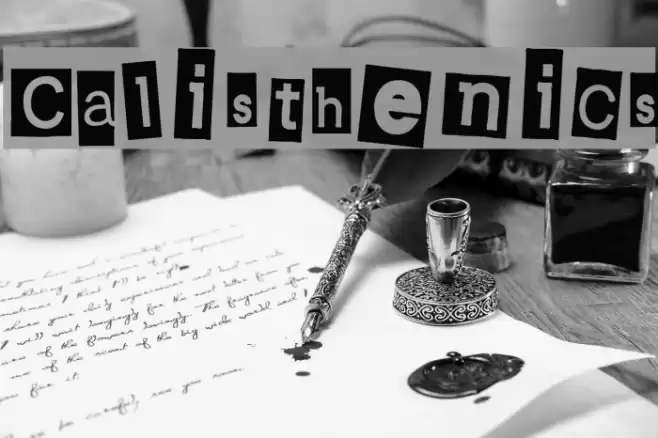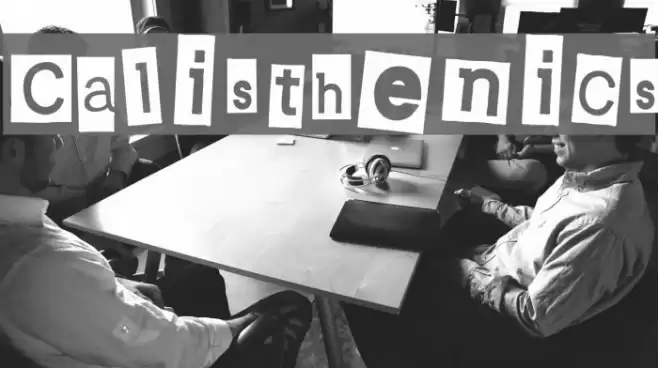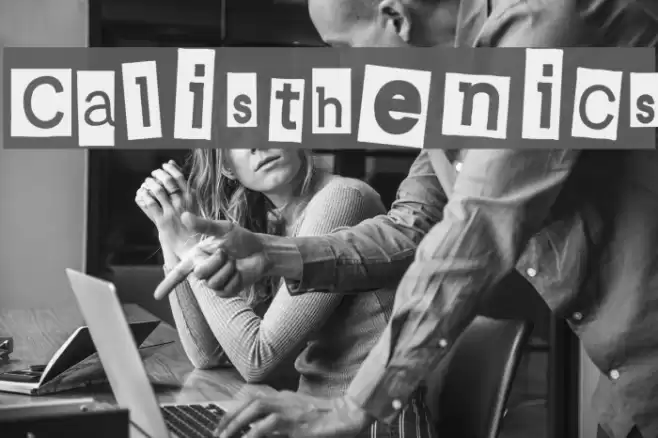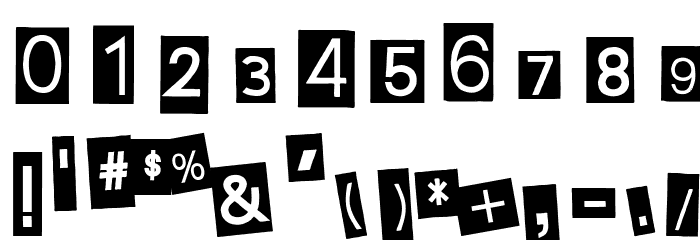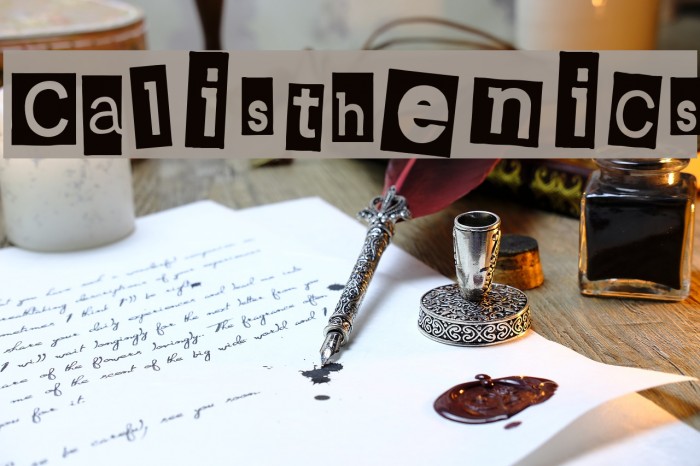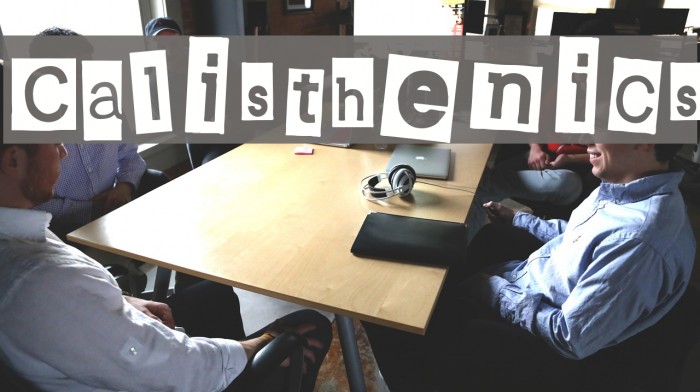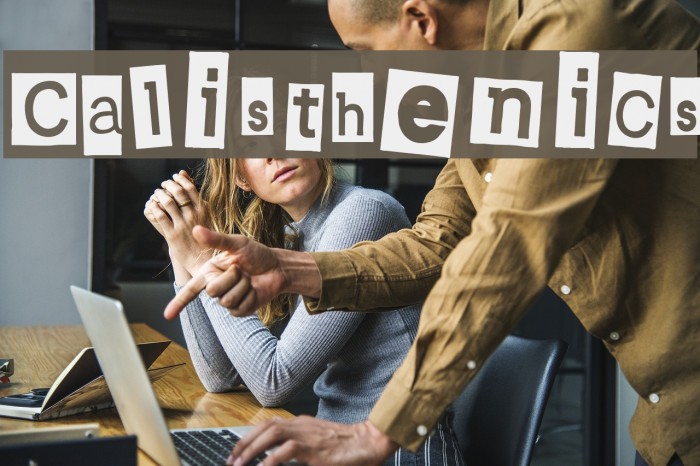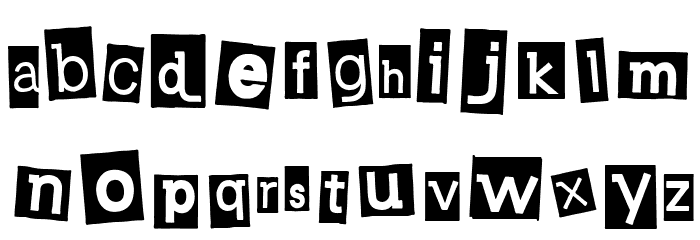
Calisthenics Font
Calisthenics Description
This font features a playful and eclectic style, reminiscent of cut-out letters from magazines or newspapers. Each character is uniquely placed on a black square, giving it a collage-like appearance. The uppercase and lowercase letters vary in size and alignment, adding to the whimsical and informal feel. The numbers and special characters follow the same design, maintaining the quirky and artistic theme. This font is ideal for projects that require a fun, creative, and unconventional look.
A playful, collage-style font with cut-out letter aesthetics from Uncategorized fonts.